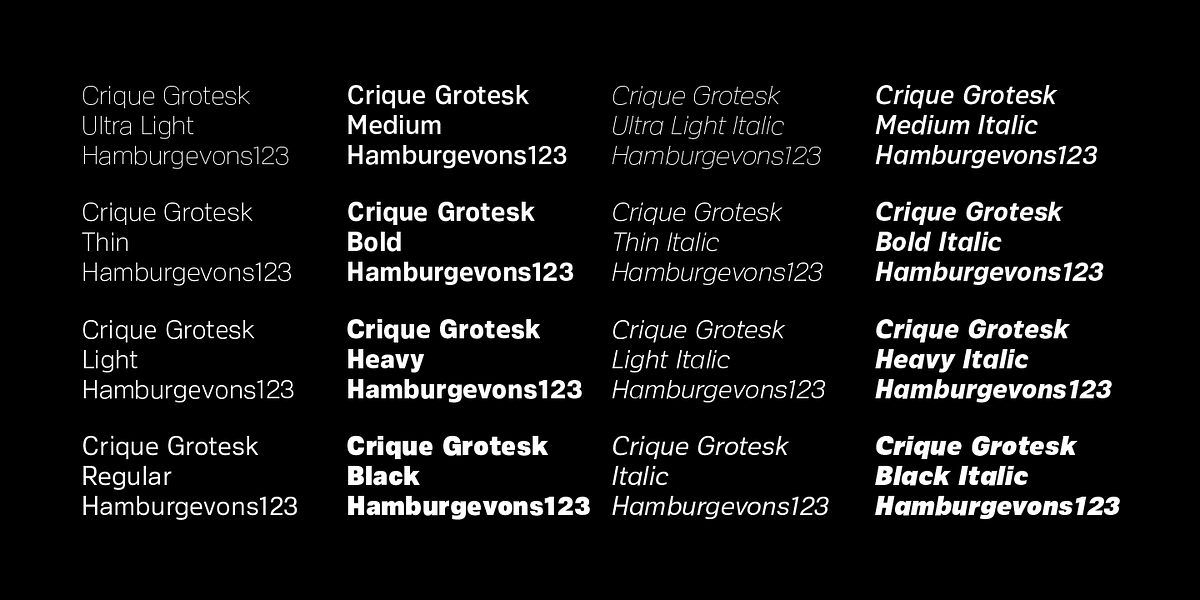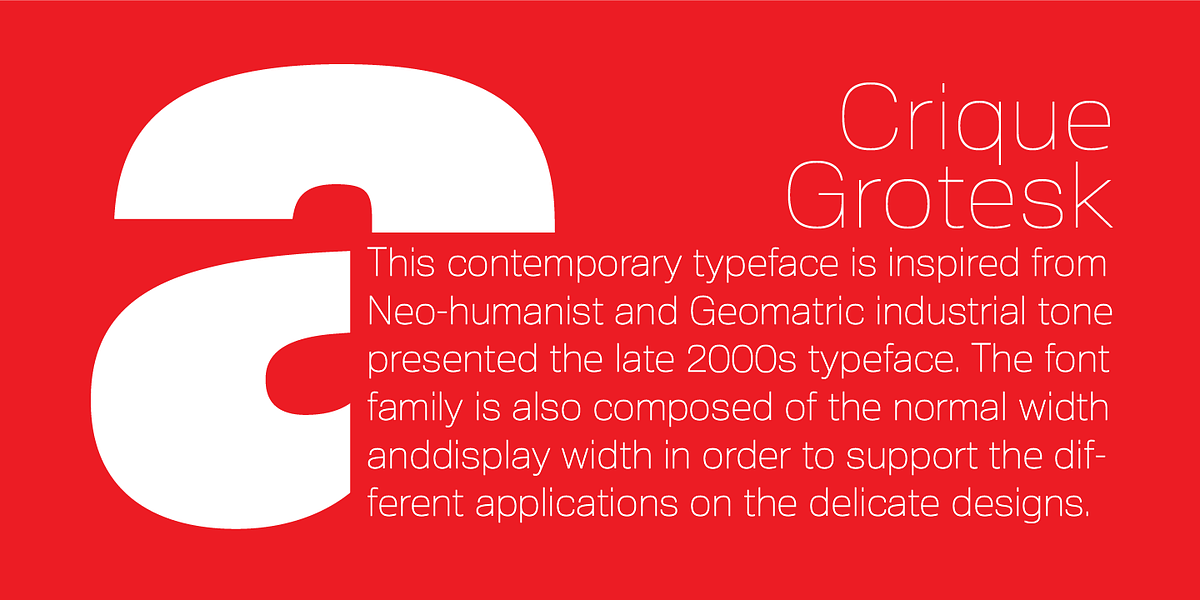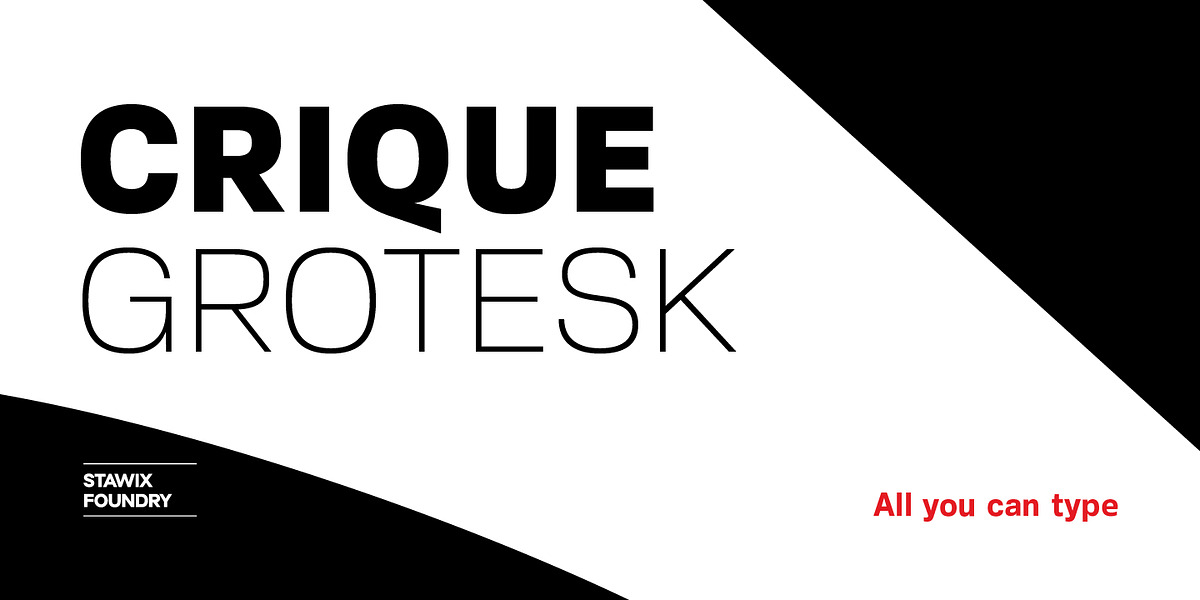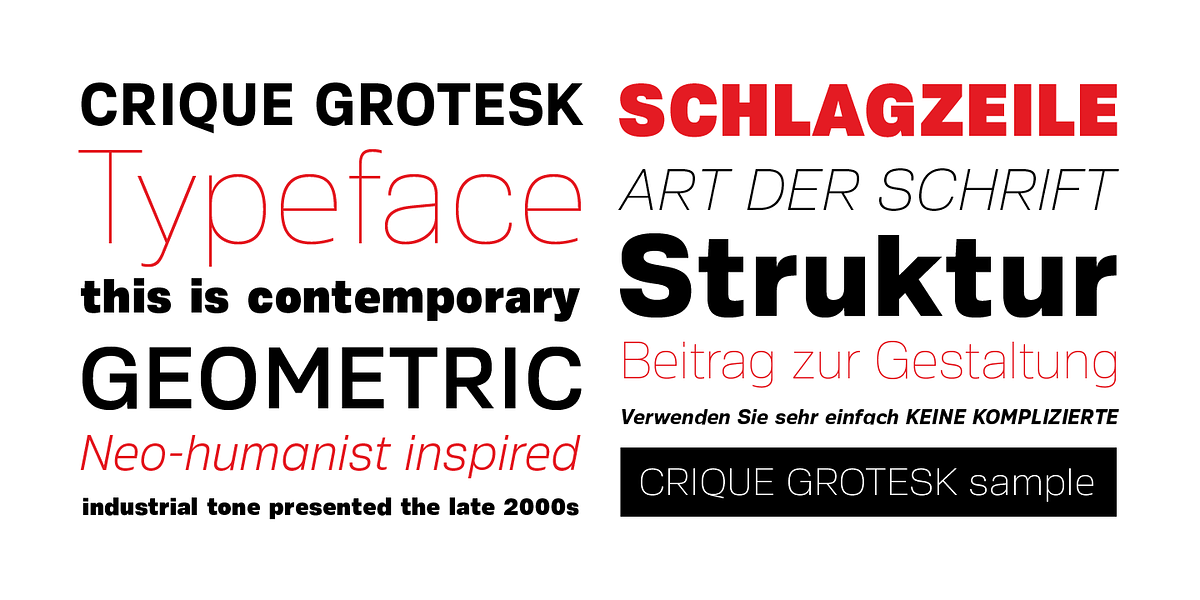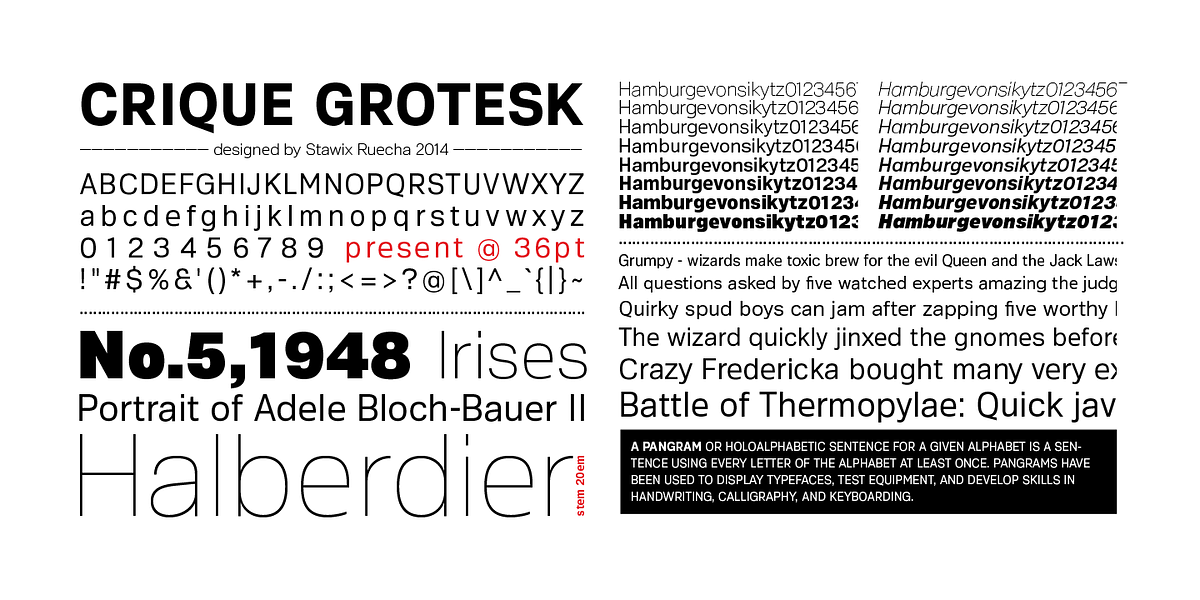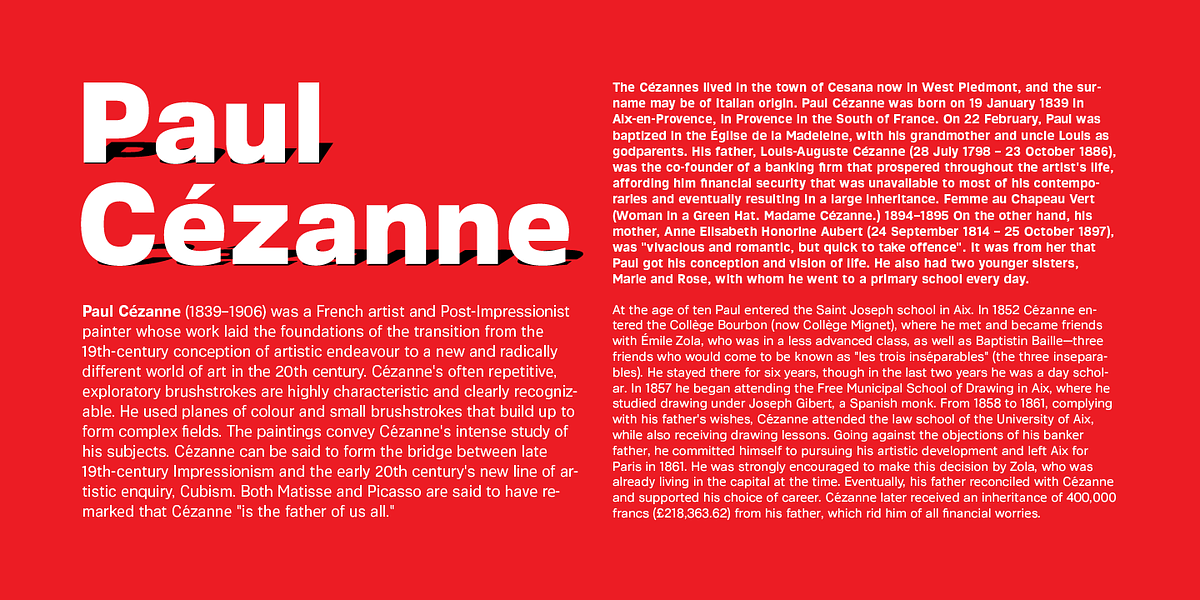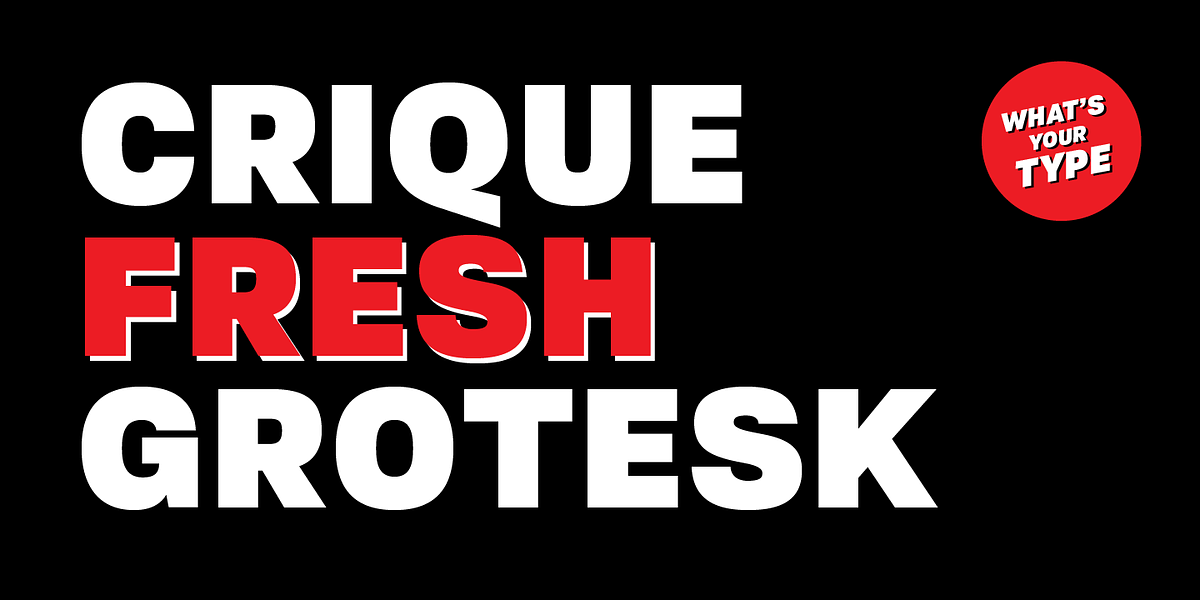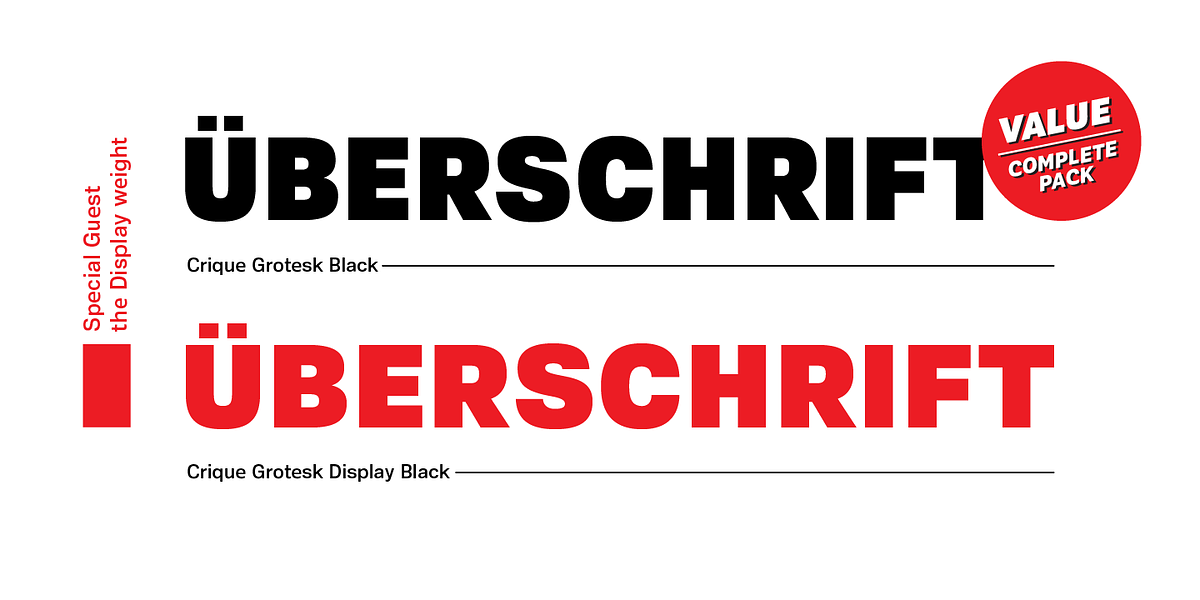
Crique Grotesk
Crique Grotesk is a neo-grotesque sans serif typeface drawing inspiration from the late 2000s trend of blending Neo-humanist and Geometric styles. Its design caters to both display and text applications, offering normal and extended widths for diverse typographic needs.